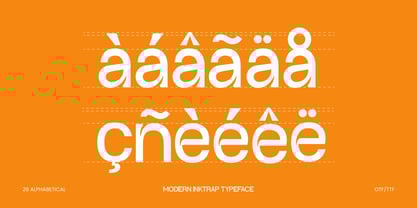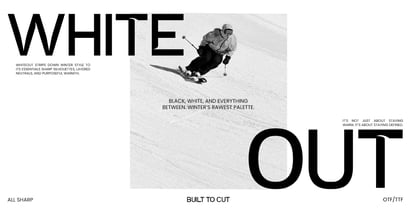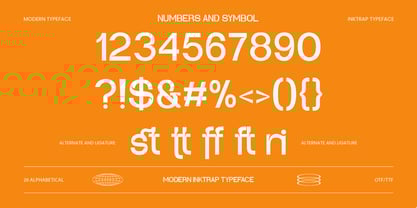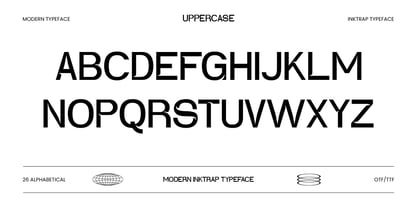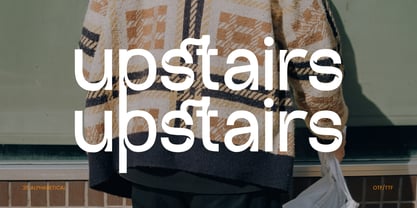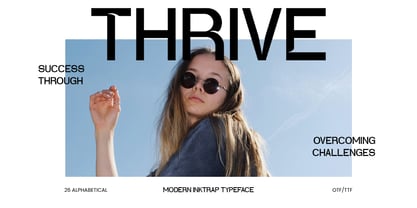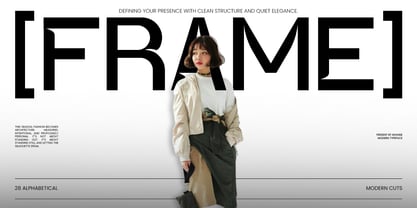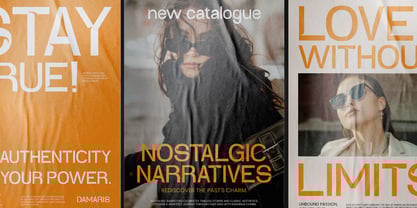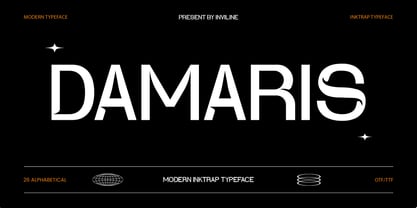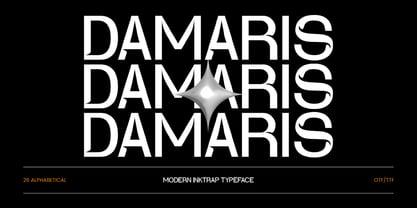
Damaris
by Inviline
The Damaris Font Family was designed by Virgiawan Listanto and published by Inviline. Damaris contains 1 styles. More about this family
Damaris is a modern inktrap typeface crafted with bold architecture and refined edges, offering a unique visual identity that seamlessly blends futuristic structure with expressive ligatures. What you get includes uppercase and lowercase characters, numerals, symbols, multilingual accents, alternates, and custom ligatures. Perfect for fashion editorials, poster headlines, product packaging, digital branding, and high-end modern interfaces that demand a sharp, experimental look with a clean finish. Damaris delivers a powerful typographic presence while remaining sleek and versatile for contemporary design work.